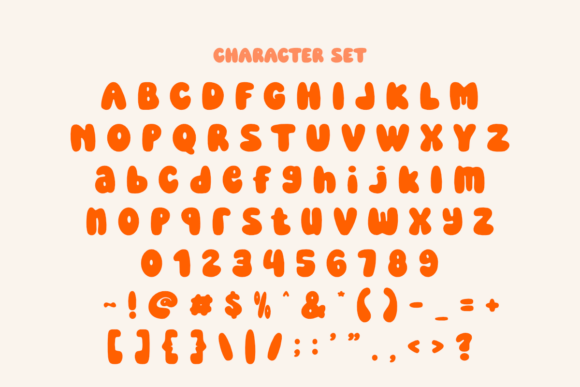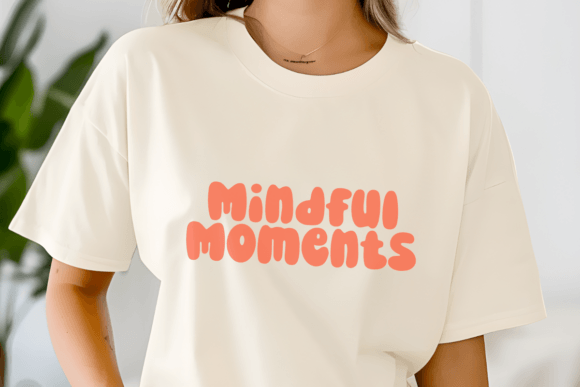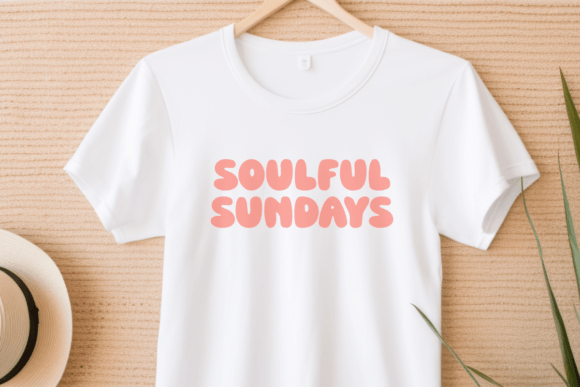
Pretty Bubble Font
Pretty Bubble is a fun retro bubble display font. font inspired by birthday invitation typography. This font is perfect for various designs that are retro, fun, cute, and bubbly. This font is perfect for t-shirt designs, mugs, planners, interior KDPs, journals, invitations, cards, sublimation, apparel, SVG, Cricut, silhouette, laser, laser cut, quotes, wall art, pillows, tumblers, stickers, and many more another.